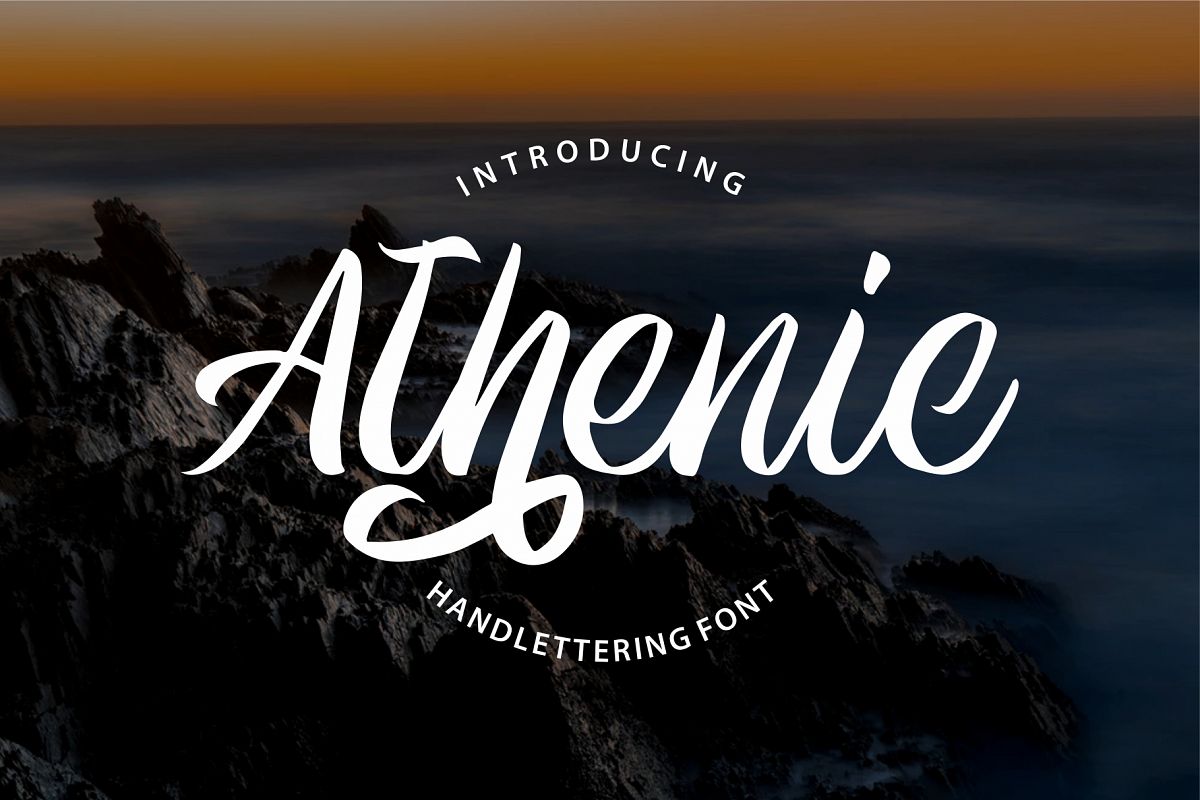
ATHENIC Script
Introducing, ATHENIC
It also comes with a clean and aged style each font. The classic feel is really perfect for you who needs a typeface for especially logotype, apparel, invitation, branding, packaging, advertising etc.